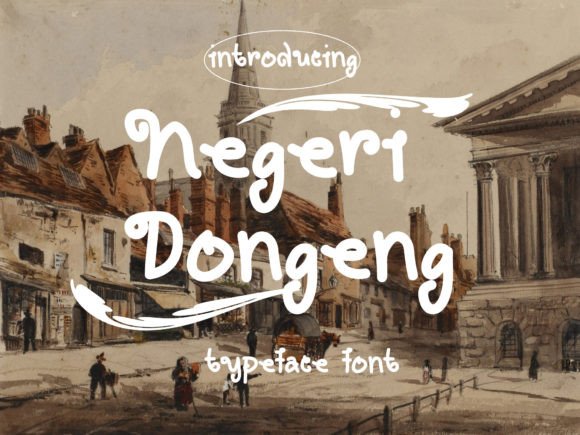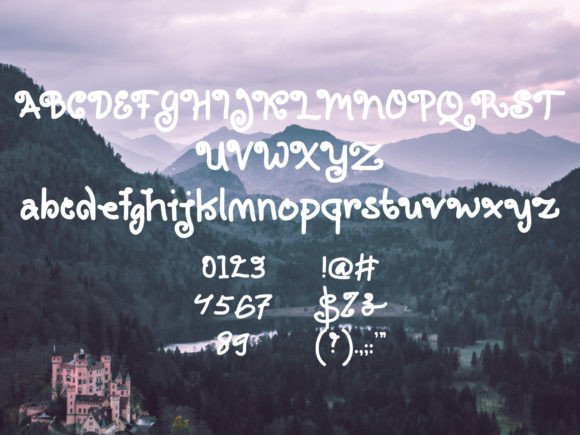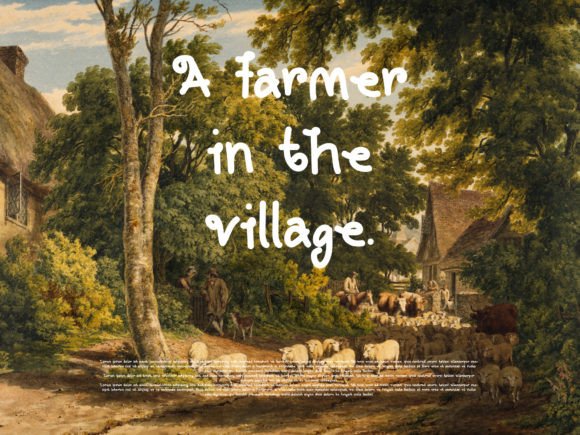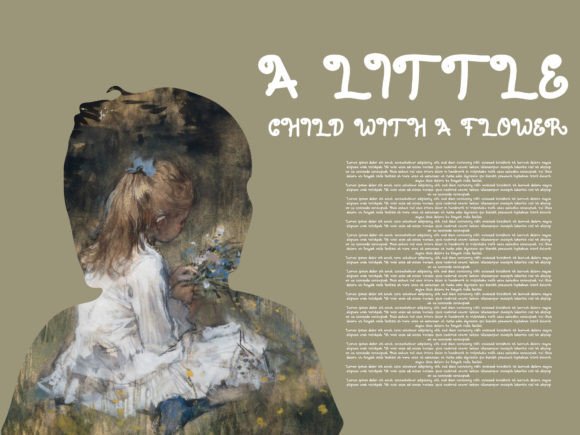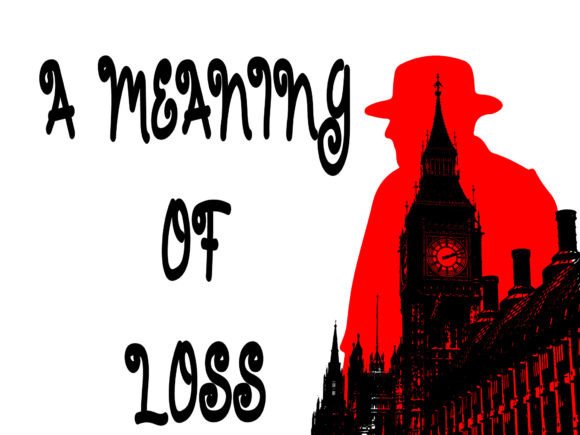
Negeri Dongeng Font
A Fun and Quirky Handwritten Script
Negeri Dongeng is a playful handwritten font designed to add charm and creativity to your projects. Each letter has smooth curves and whimsical shapes that feel friendly and approachable. The casual style makes Negeri Dongeng perfect for designs that should feel lighthearted and unique.
Whether you’re working on personal crafts or professional branding, this font helps your words stand out with joyful energy.
Negeri Dongeng is a versatile font that adapts effortlessly to many uses. It’s ideal for greeting cards, invitations, and thank-you notes. The quirky shapes make every message feel personal and warm.
Use Negeri Dongeng for logos and business cards if you want your brand to feel approachable and memorable. The handwritten style brings personality and friendliness to any visual identity.
This font also shines on product packaging, stickers, and handmade goods. The fun character adds a touch of creativity that makes your products feel unique.
Negeri Dongeng is perfect for social media graphics, blog headers, and Pinterest pins. Its relaxed, playful design helps your content stand out in a busy feed.
The font includes uppercase and lowercase letters, numbers, and punctuation marks. Ligatures are included so your text flows naturally and looks cohesive.
Clear, Playful, and Easy to Read
Even with its quirky style, Negeri Dongeng remains clear and legible at any size. Balanced spacing between letters keeps your text looking neat and professional, whether you’re using large headlines or small captions.
Many designers pair Negeri Dongeng with a clean sans-serif font to create contrast. Use Negeri Dongeng for titles and the sans-serif for supporting text. This combination guides the reader’s eye and keeps layouts organized.
To showcase Negeri Dongeng’s playful personality, use bright backgrounds and cheerful colors. Shades like soft blue, pastel pink, and light yellow help the friendly shapes stand out.
When designing cards or crafts, consider adding hand-drawn icons or doodles that match the font’s quirky feel. For social media posts and packaging, keep layouts simple so the font remains the main focus.
Think about the mood you want to create. Negeri Dongeng is perfect for projects that should feel fun, friendly, and authentic.
Negeri Dongeng is more than just a handwritten font. It’s a creative tool that transforms ordinary text into something special and memorable. Its smooth curves and whimsical details bring personality and warmth to every project.
Adding Negeri Dongeng to your font collection gives you a reliable option for all types of creative work. From crafts and branding to social media and packaging, this font adapts effortlessly to your ideas.